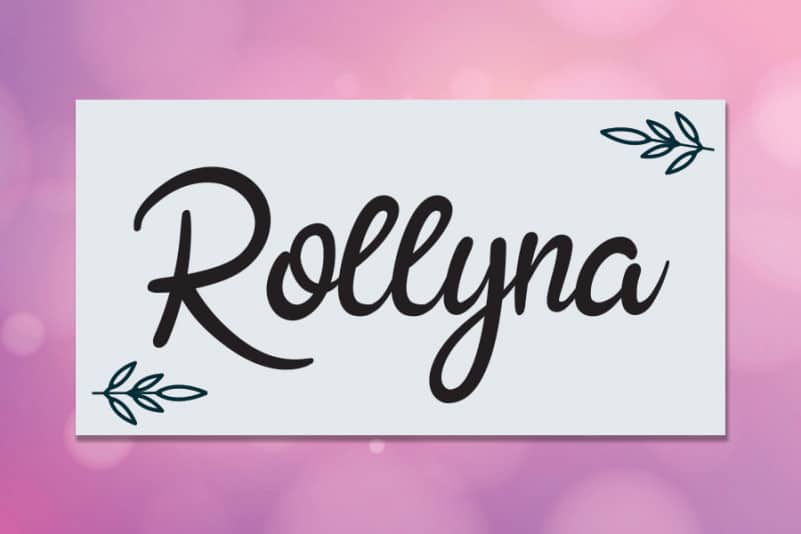
Rollyna Script Font
Rollyna Script Font is a flowing handwritten font, described by an elegant touch, perfect for your favorite projects. Fall in love with its incredibly distinct and timeless style and use it to create spectacular designs!
the latest style letters are perfect for wall displays, wedding invitations, social media post logos,
advertisements, product packaging, product designs, labels, photography, watermarks, invitations, stationery,
and any project that requires taste handwriting.